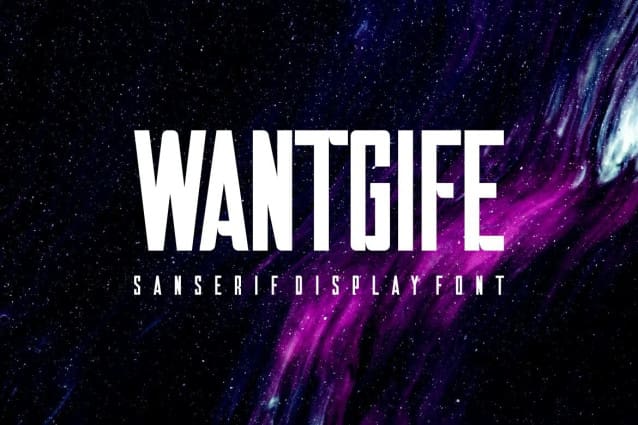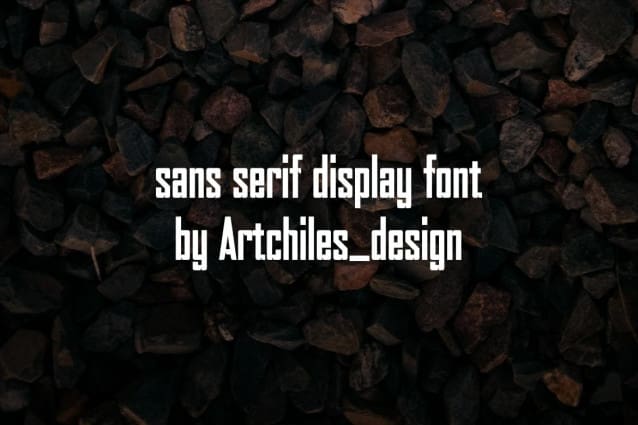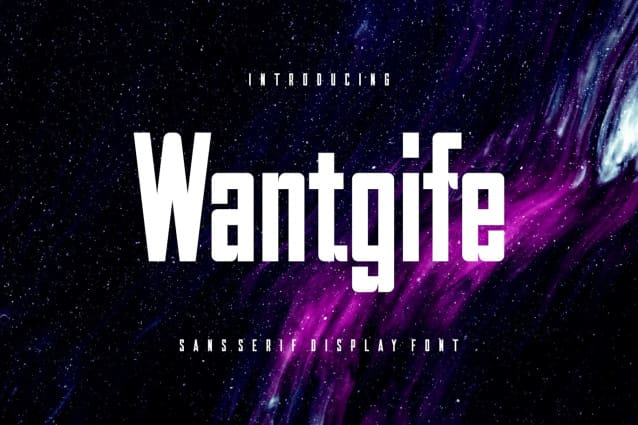
Wantgife Font
Wantgife Font – Sports Display Sans Serif Font – Techno Futuristic / Sci-fi Game Font, perfect for your upcoming projects such as logo branding, editorial design, e-sport design, 80s retro design, game/gaming industry, sports racing, supercar brand, e-sport branding, music poster, website design, modern advertising design, poster quote, book/cover title, special events, and any more.